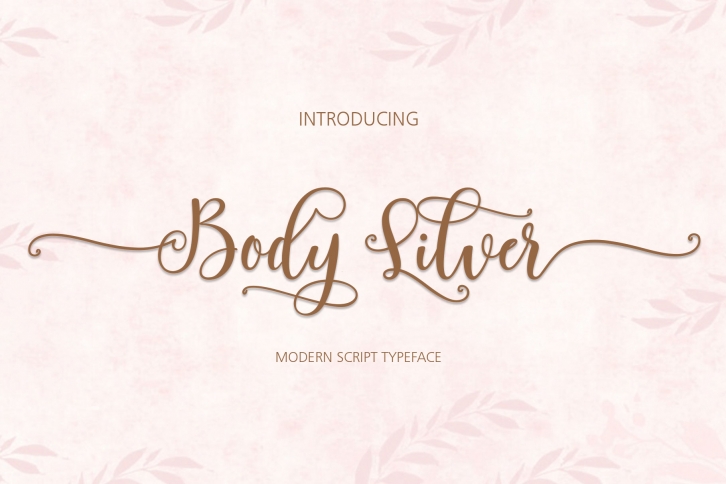
Body Silver Script is a gorgeous font that was realeased on March 7, 2019. The font can be used in many style contexts and design environments. Perfect for invitations, magazines, websites, logos, and more! It was designed by Jhoel Design and the file size is 8.26 MB. Thanks for checking out this font!